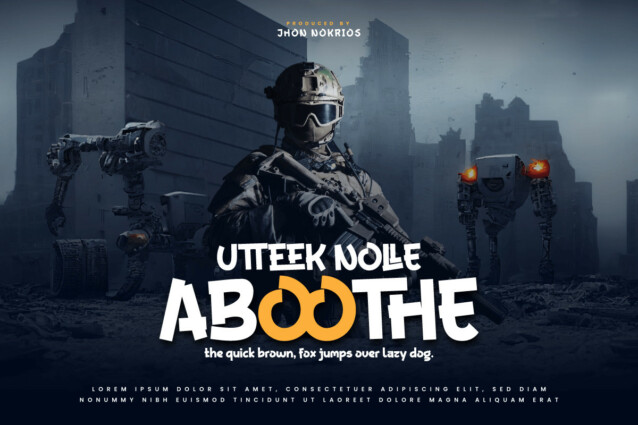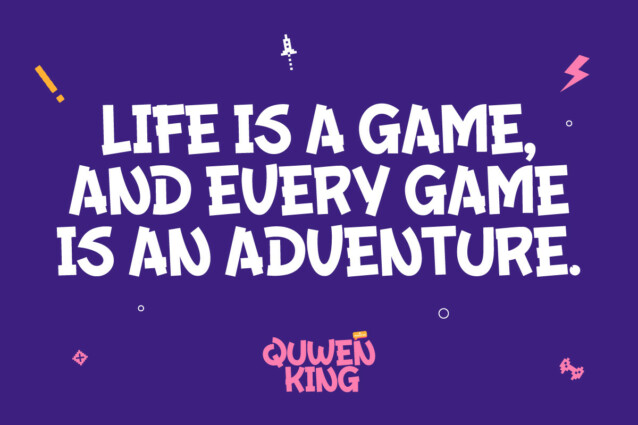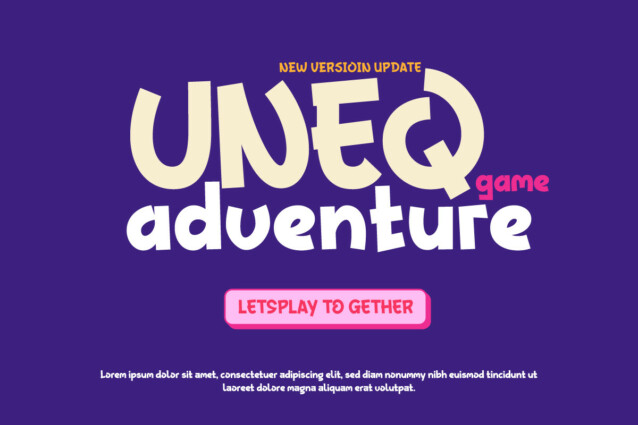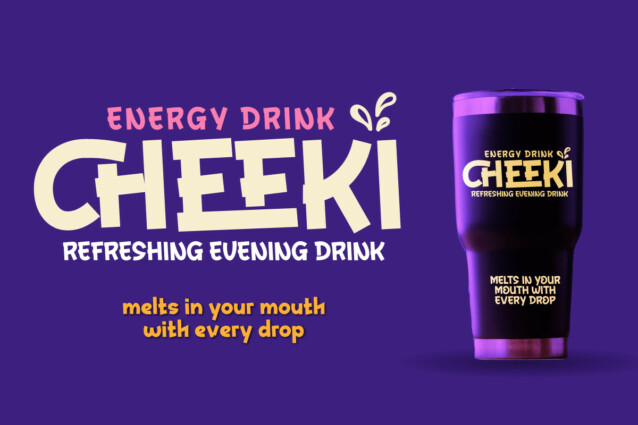
Quwen King Font is the perfect solution for projects that require a unique touch. From powerful movie displays to exciting games and stunning streaming events, this font captivates and dominates in a variety of languages.